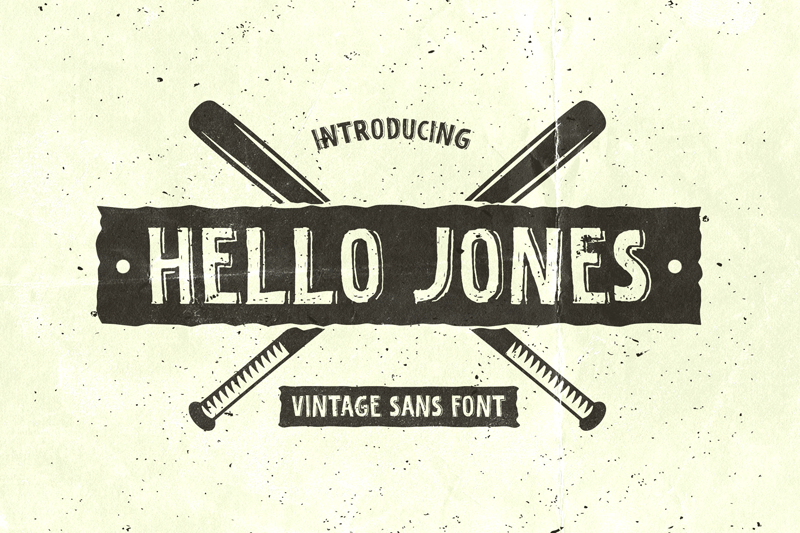
Preview and download Hello Jones Font. Created by Type Factory in Fancy Eroded styles with Free for personal use license.
Font name: | Hello Jones |
Author: | Type Factory |
Hello Jones is a unique Vintage Sans font. It can easily be matched to an incredibly large set of projects, so add it to your creative ideas and notice how it makes them stand out! Full Version Download Here : https://typefactory.co/product/hello-jones-vintage-sans-font/ |